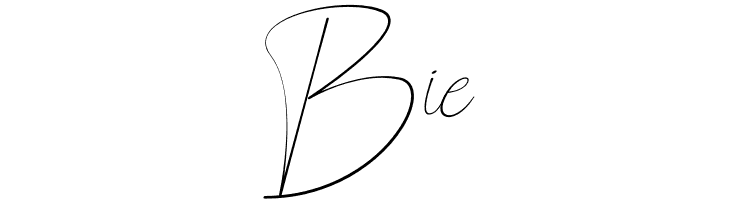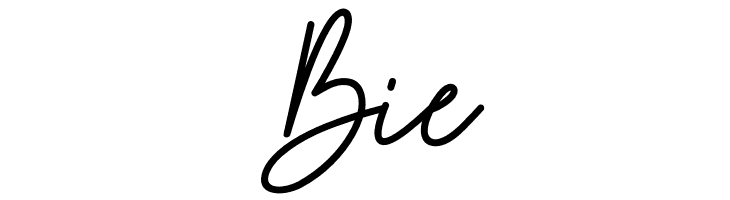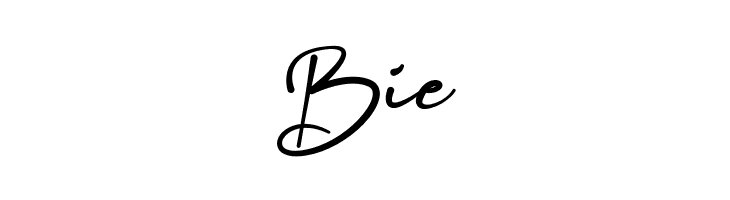
( Fonts by Jadatype )
Elegant, thin, and highly slanted handwritten script.
( Fonts by Picky Labs )
Loose, playful handwritten script with tall, expressive forms.
( Fonts by Sizimon.id )
Elegant handwritten script with tall, flowing characters.
( Fonts by Scratchones )
Tall, playful handwritten font with rounded strokes.
( Fonts by InspiraType )
Light, flowing handwritten script with a casual, elegant style.
( Fonts by Milea Sajojo )
Casual, handwritten script with light, fluid strokes.
( Fonts by Bluestype Studio )
A thin, elegant handwritten script with tall, airy letterforms.
( Fonts by Maulana Creative )
Elegant, casual handwritten script with connected, flowing strokes.
( Fonts by Jadatype )
A lively, handwritten script with fluid, connected strokes.
( Fonts by GFR Creative )
A stylish, handwritten script font with a modern, casual look.